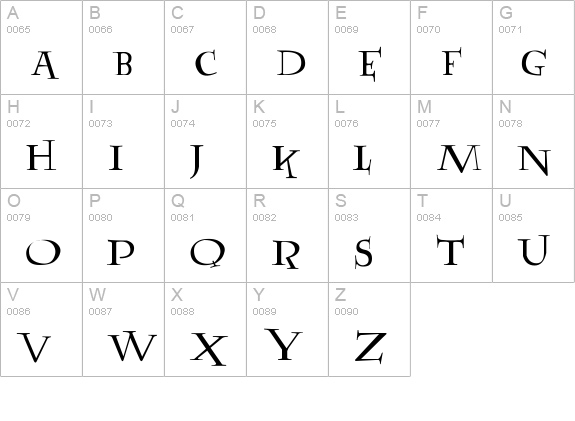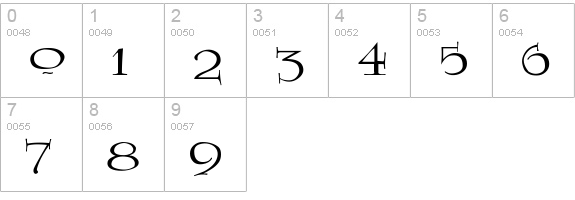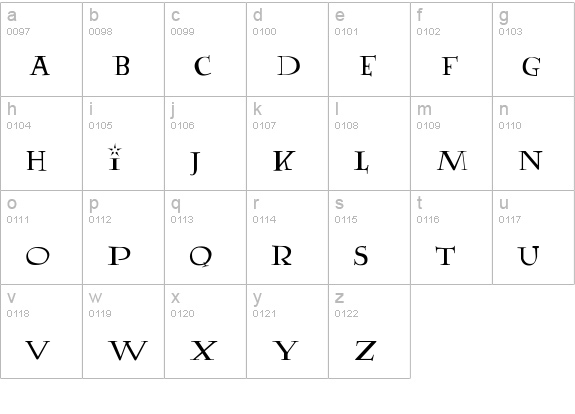
Lumos Font Details
Lumos font is a modern and elegant typeface that exudes sophistication and style. Its sleek lines and graceful curves make it perfect for a wide range of design projects, from branding to editorial to web design. The versatility of Lumos font allows it to effortlessly adapt to any creative vision, adding a touch of refinement to any layout. What's even better is that Lumos font is available for free download at FontsMarket.com. This means that you can enhance your projects with this exquisite font without breaking the bank. Take advantage of this opportunity to elevate your designs and make a lasting impression with Lumos font. Download it today and let your creativity shine!